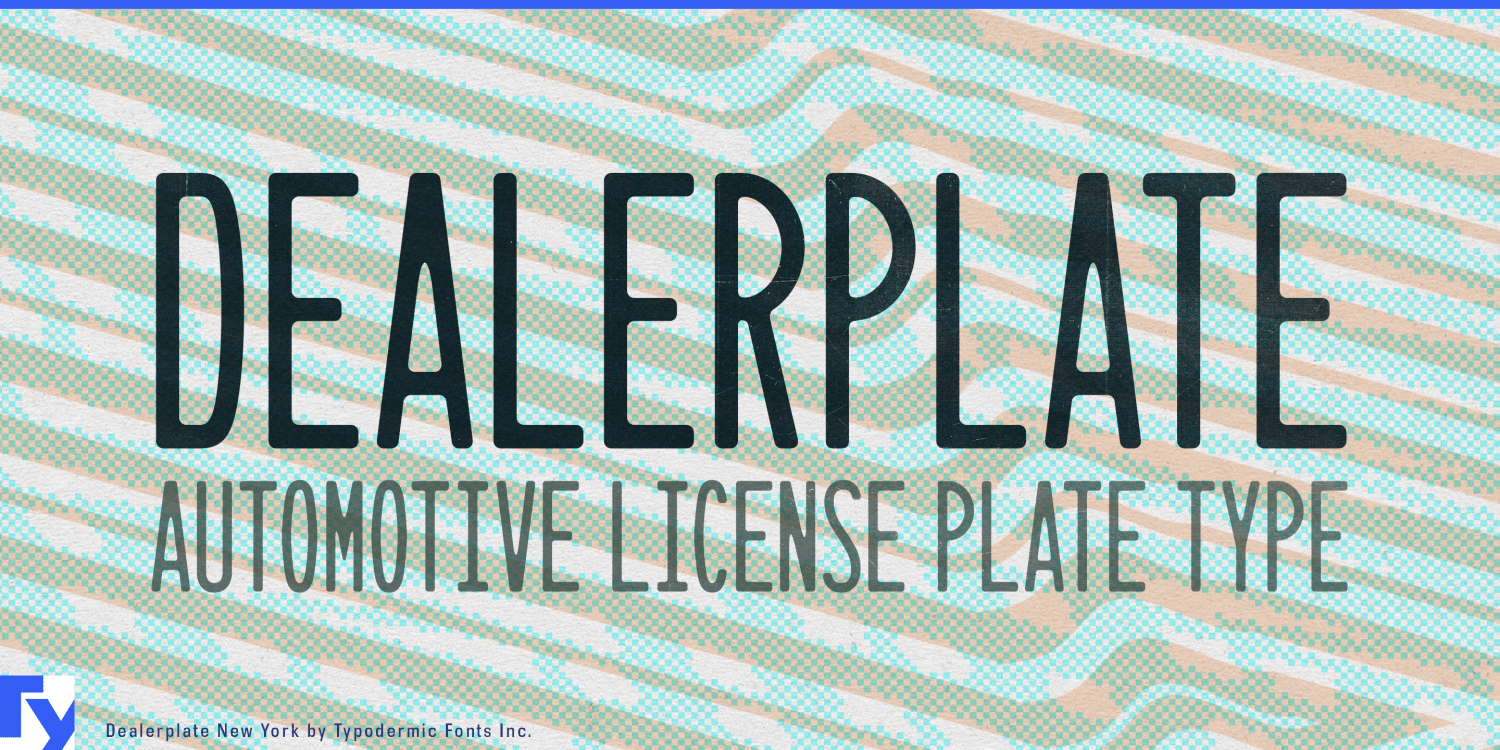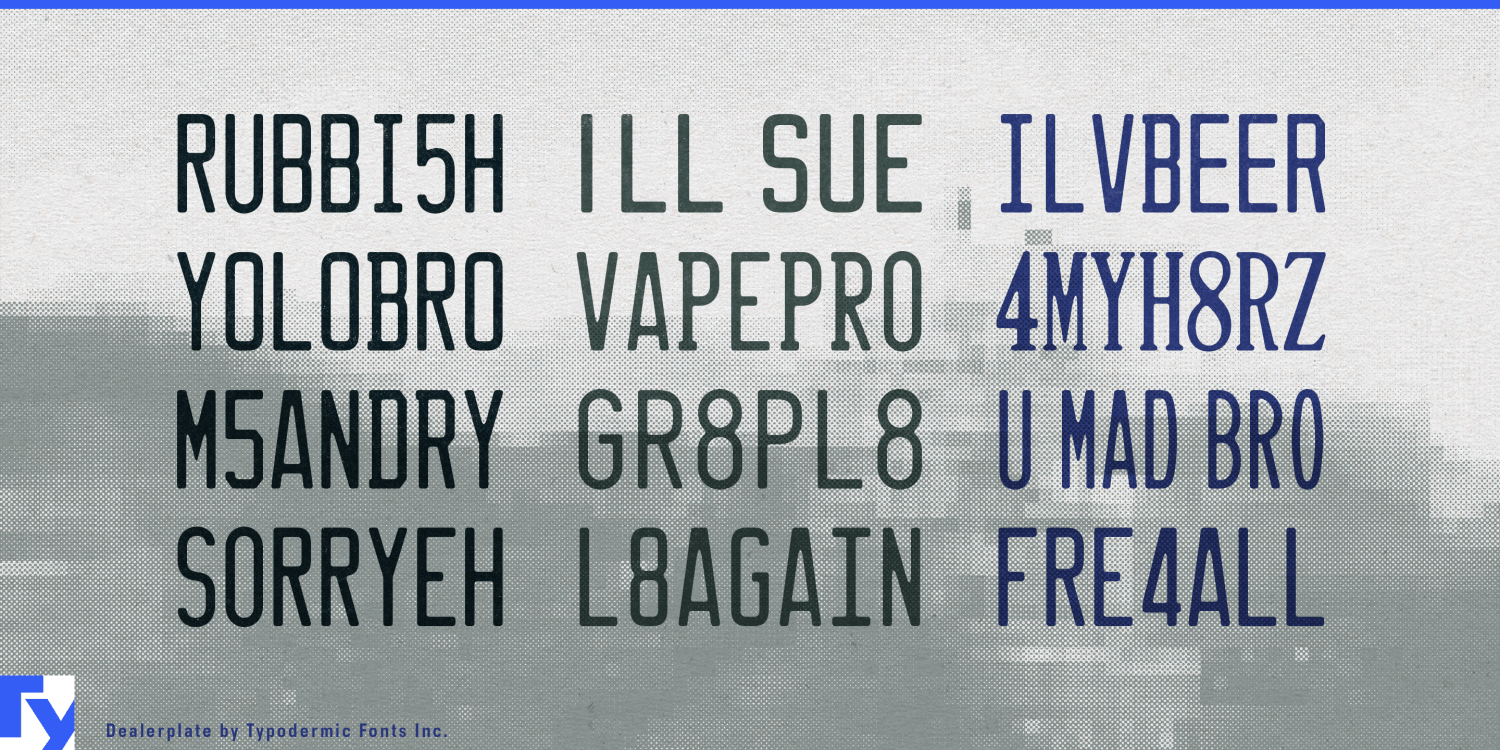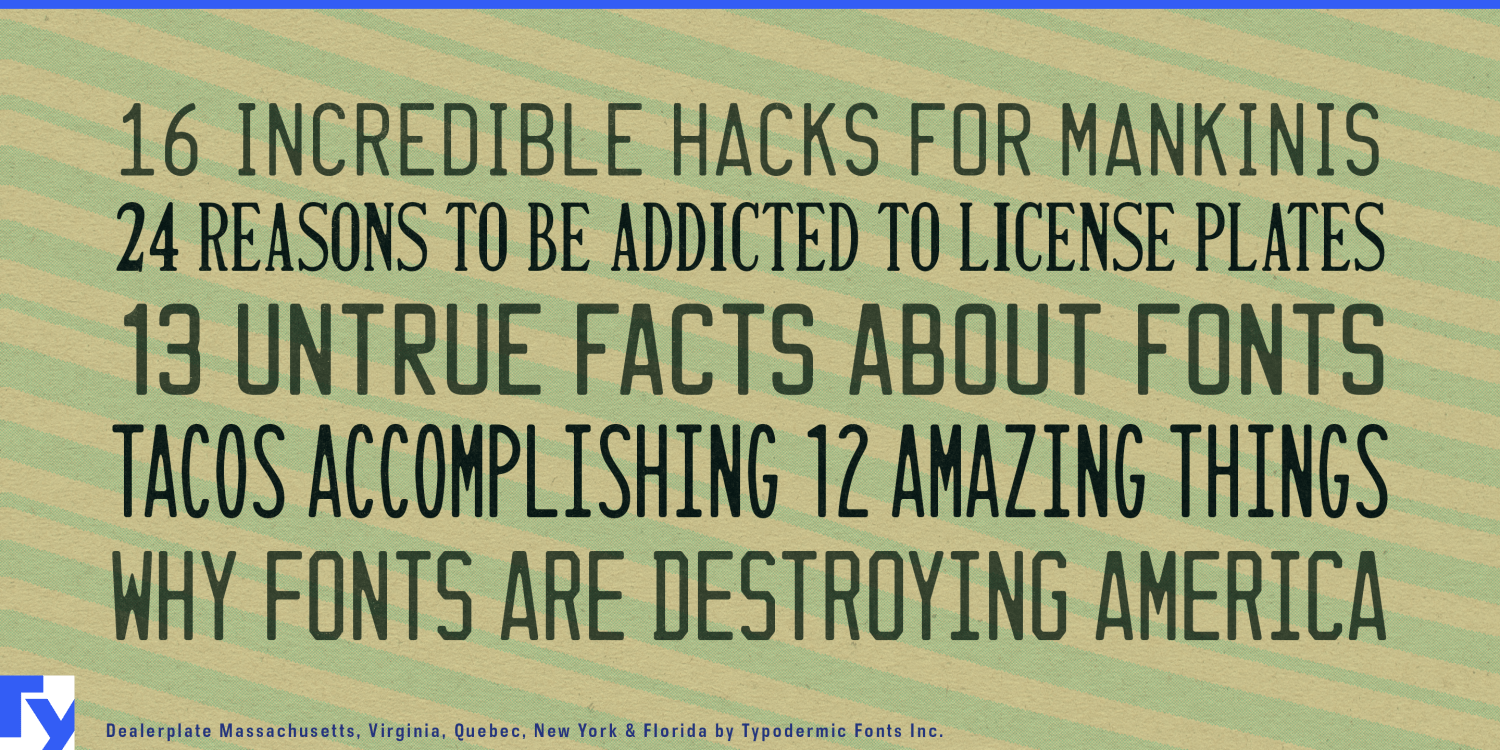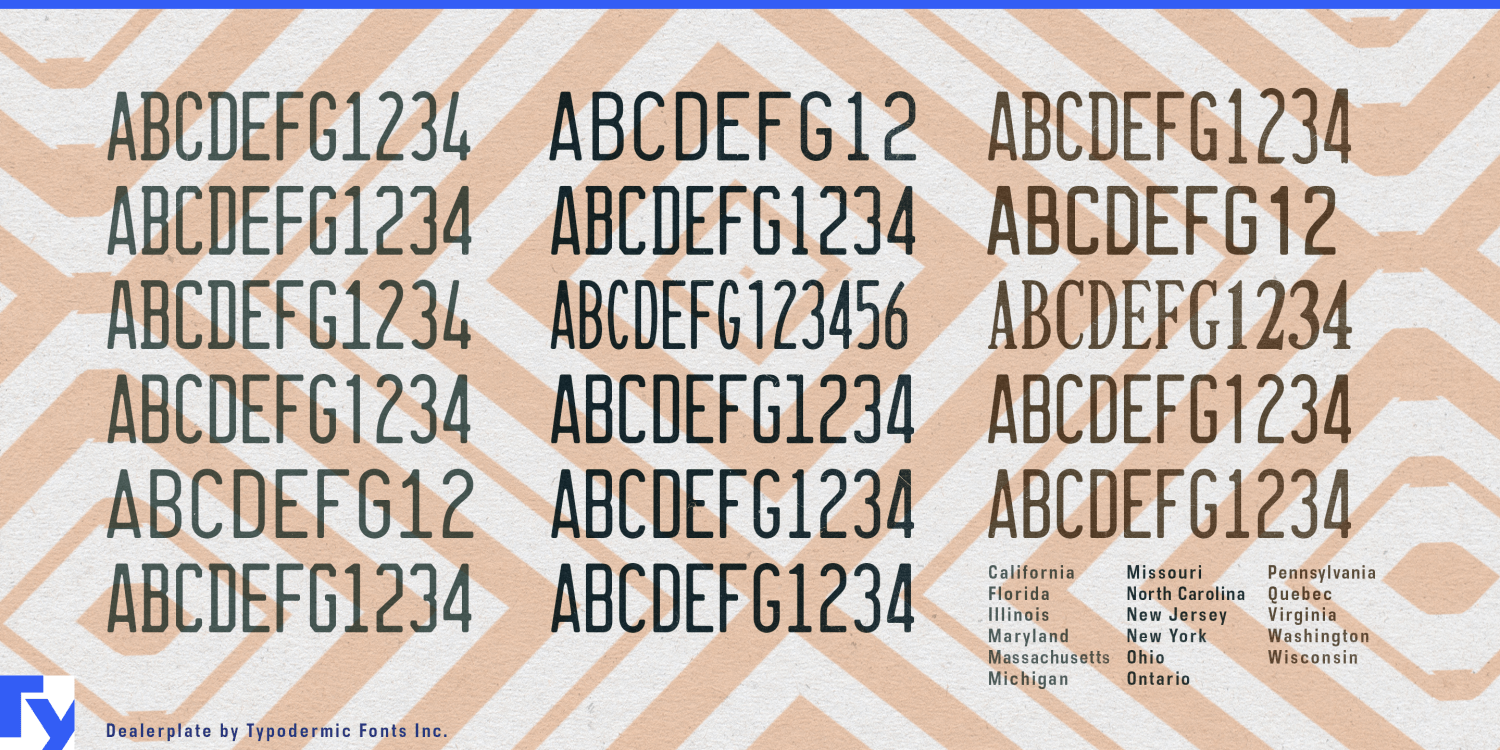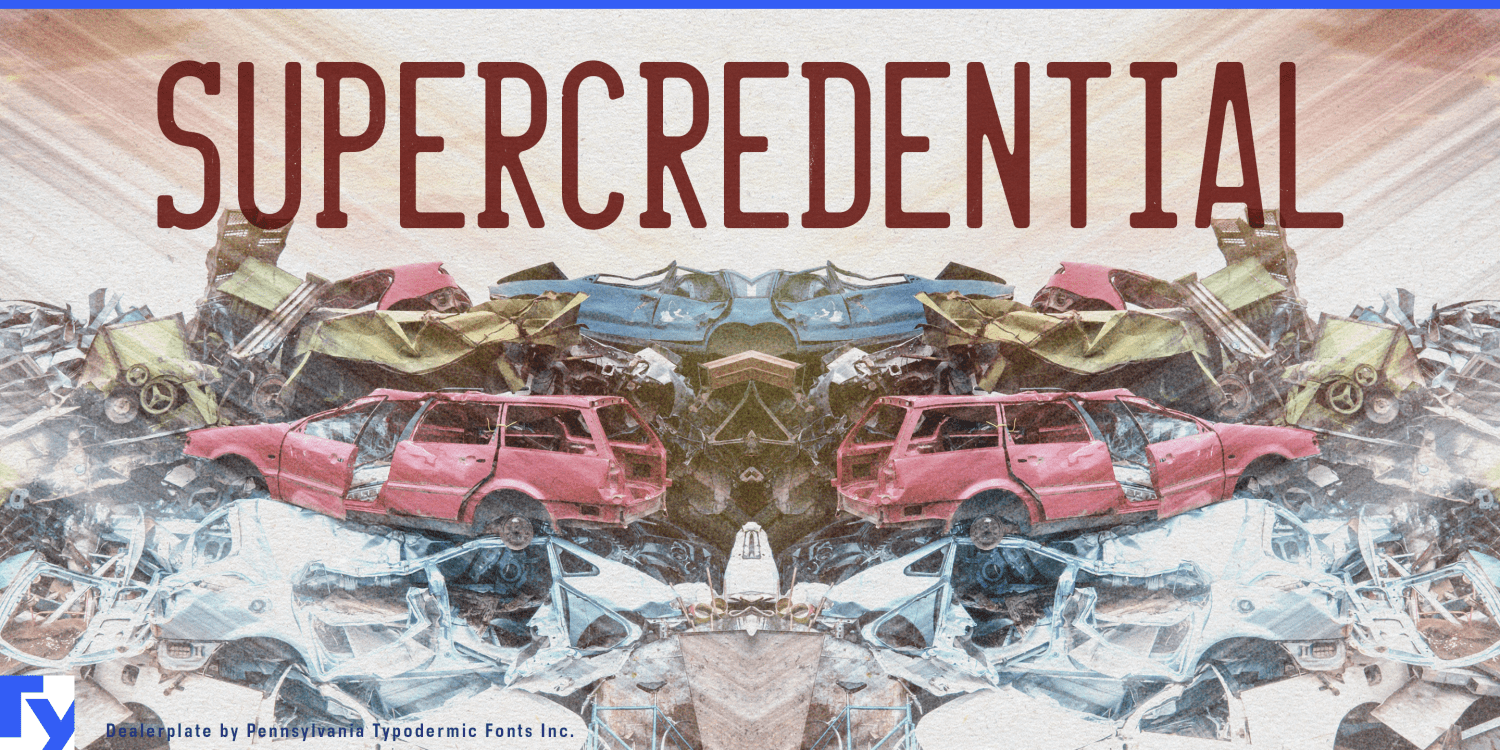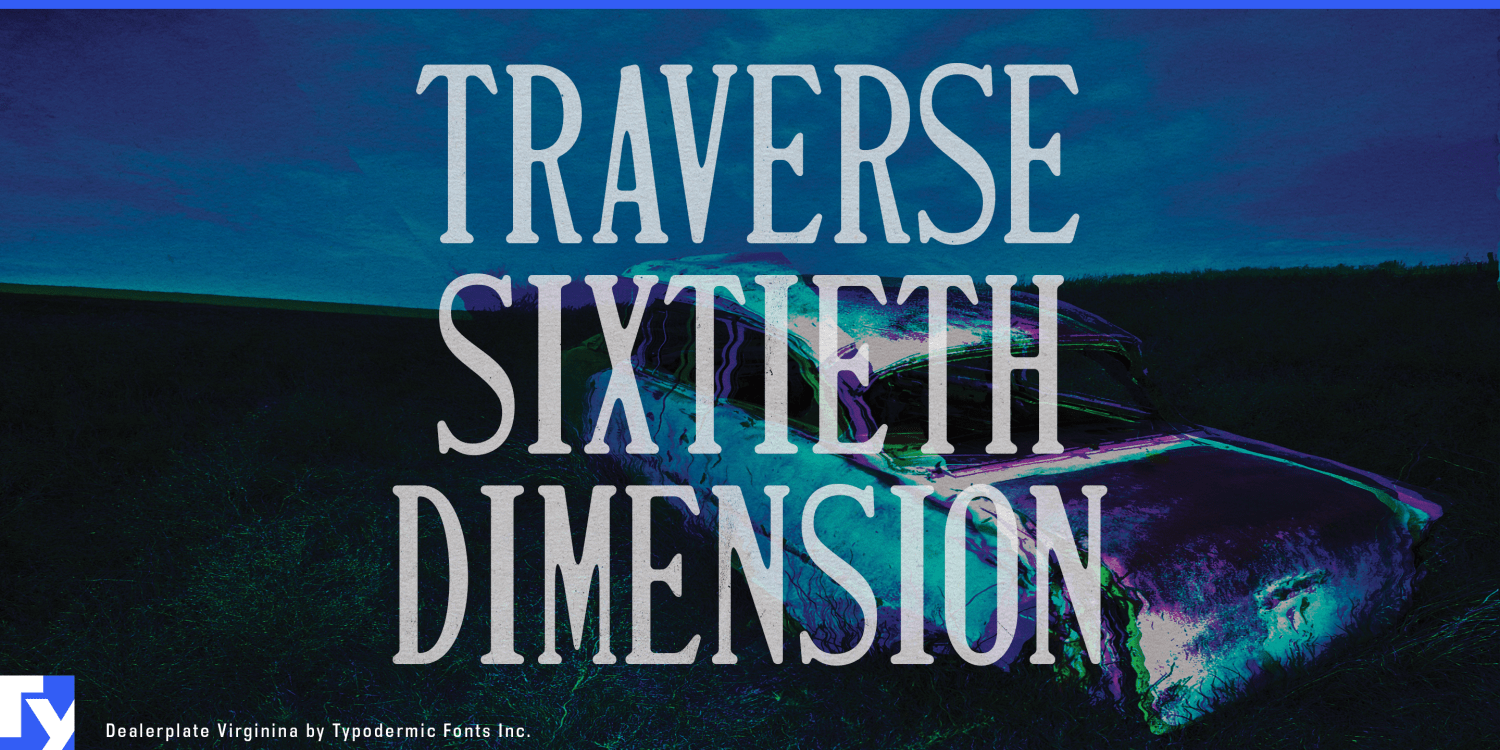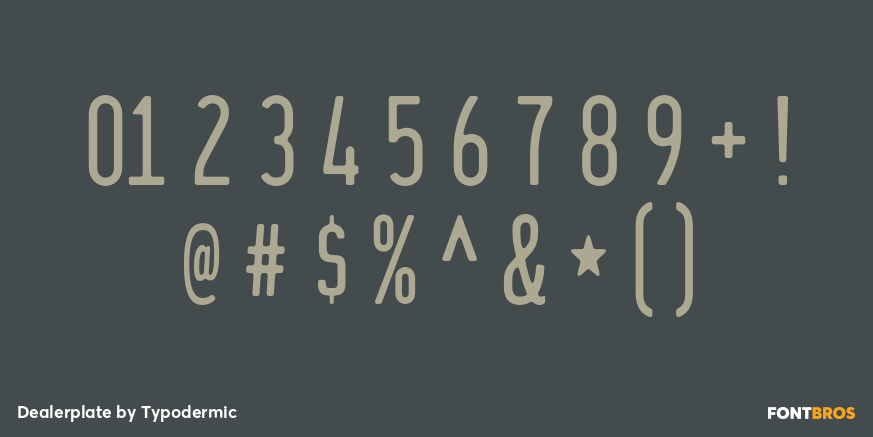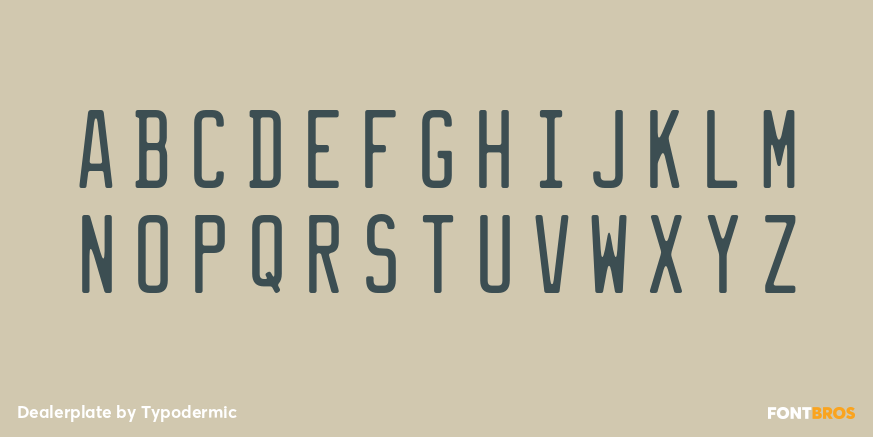
Dealerplate
Dealerplate is a regional vehicle-lettering toolkit for believable North American world-building.
A real license plate may provide only six or seven characters, which is enough until a production needs a different word, a fictional registration or matching lettering elsewhere in the scene. Dealerplate expands the partial alphabets of embossed U.S. and Canadian plates into usable typefaces, giving prop designers, art departments and environment artists complete regional systems instead of forcing them to improvise missing letters from photographs.
Film and television production is the most direct use. A New York police procedural, a California road scene, an Ontario vehicle prop or a Quebec period reconstruction can use lettering that belongs to the setting rather than one generic license-plate style. Dealerplate can handle hero plates and background vehicles, but also evidence photographs, parking permits, impound graphics, registration props and dealership inserts created for the fictional world.
Open-world and driving games face the same problem at much greater scale. Crime games, trucking simulators, racing titles and urban simulations may contain hundreds of vehicles spread across different regions or fictional jurisdictions. Dealerplate’s 17 styles let environment artists give those places distinct registration systems while retaining the proportions and construction of embossed North American plates. A setting inspired by California can feel different from one drawing on New York, Florida, Ontario or Quebec without inventing every alphabet from scratch.
Virtual production and digital set extensions make the same regional specificity useful even when no physical prop exists. CG traffic, LED-stage streets, background vehicles and period reconstructions still need registration graphics that belong to the right place and era. True-crime productions can use the styles for reconstructed vehicle identifiers, surveillance graphics and evidence boards, while automotive museums, classic-car auctions and heritage programs can apply them to registration-history displays, provenance graphics and regional motoring exhibits.
Dealerplate includes styles based on California, New York, New Jersey, Ohio, Illinois, Pennsylvania, Florida, Maryland, Michigan, Wisconsin, Massachusetts, Missouri, Washington, North Carolina, Virginia, Quebec and Ontario. The point is not simply to reproduce a plate rectangle. It provides enough regional vocabulary to make vehicles, documents and fictional places feel as though they came from somewhere specific.